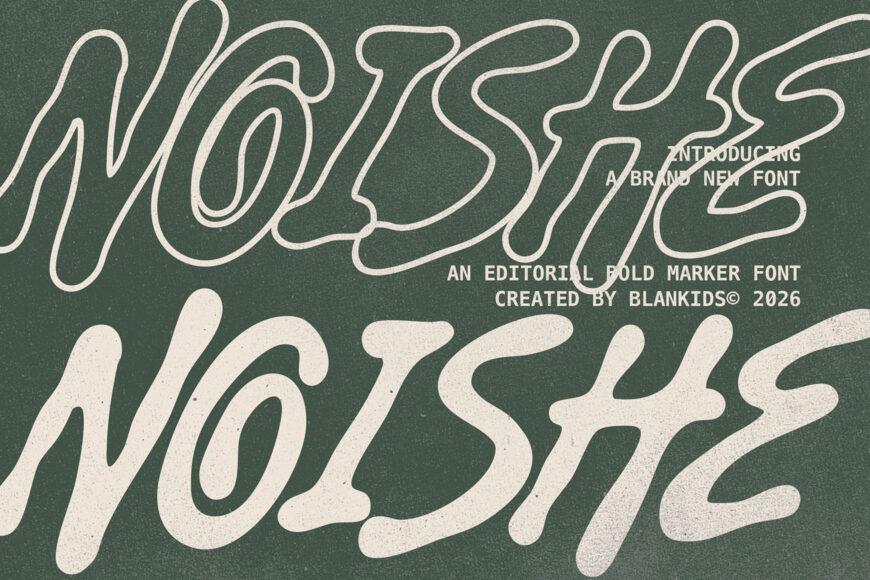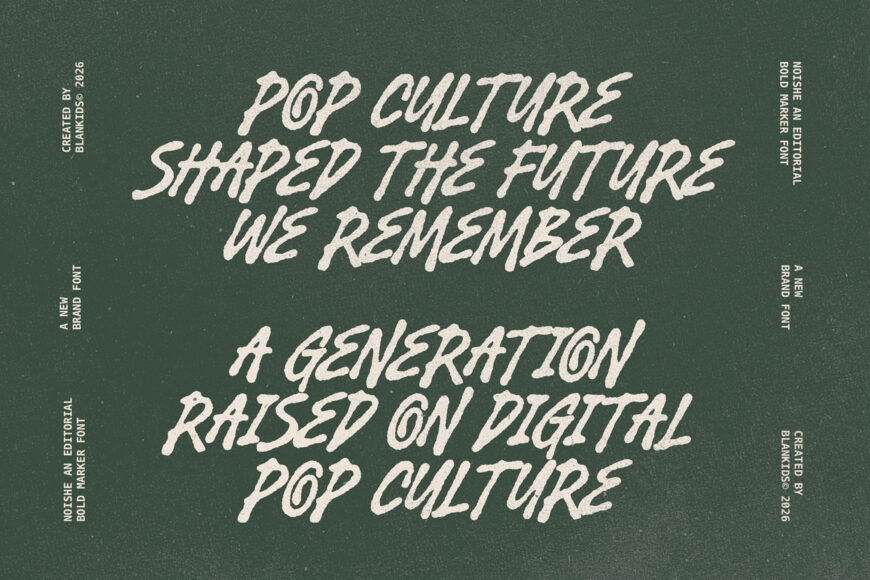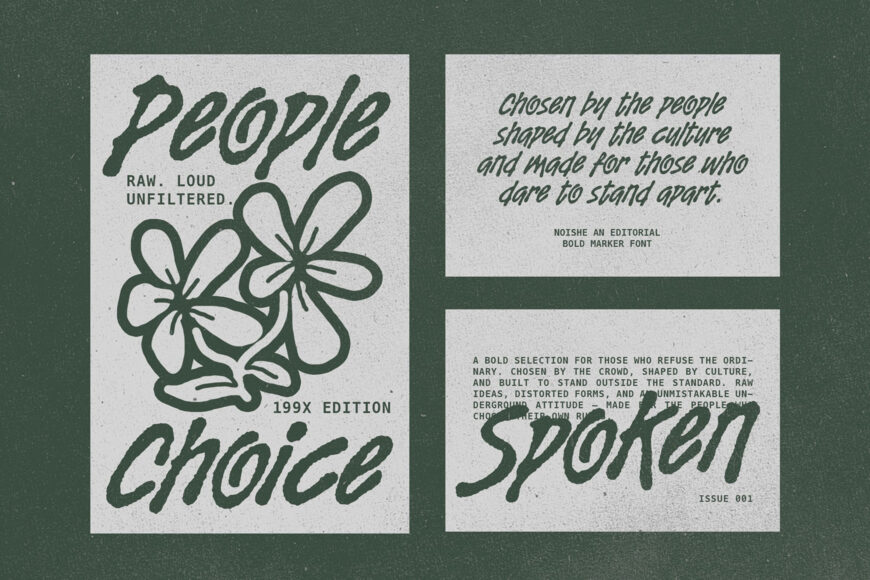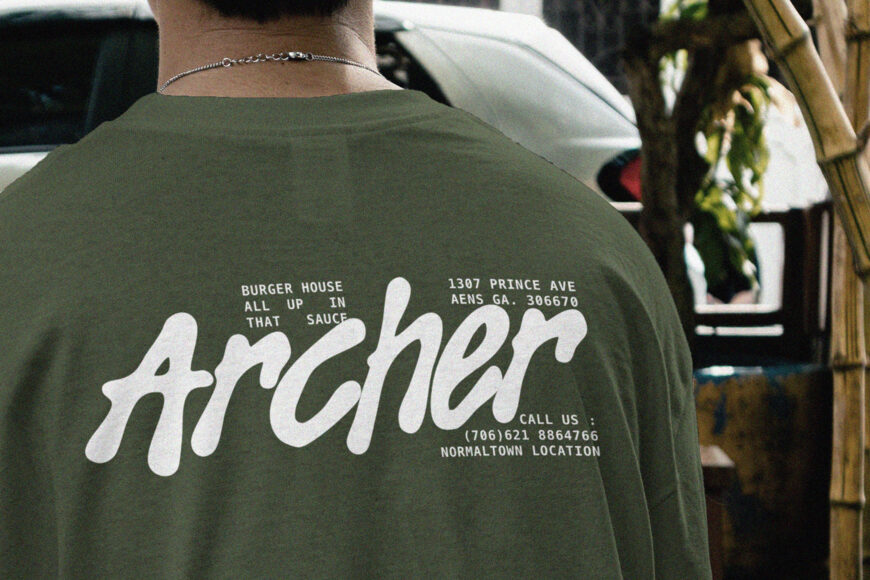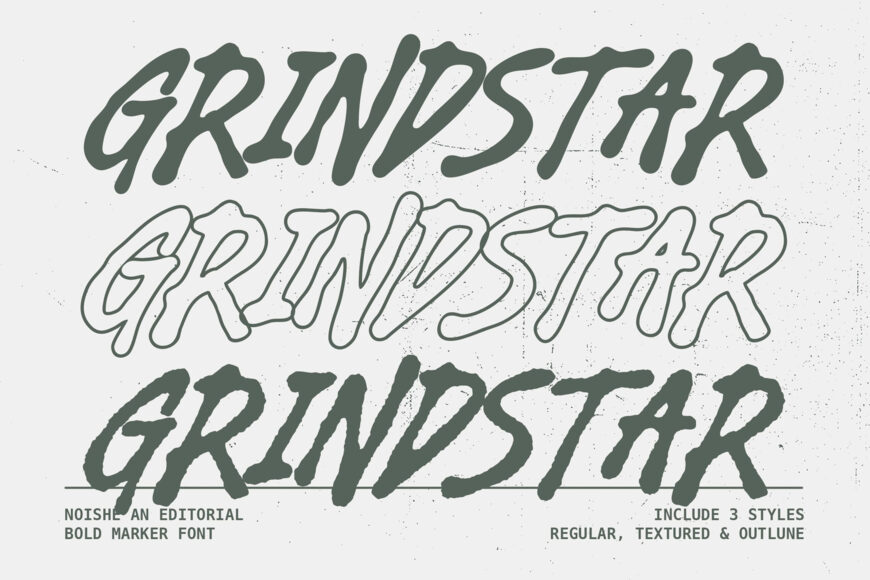
Noishe Font
NOISHE is a bold marker typeface designed to capture a raw, expressive, and authentic analog feel. Built with high-impact strokes and a natural hand-drawn texture, it delivers an energetic, unpolished aesthetic that commands attention instantly. Ideal for modern graphic design projects that demand a strong visual statement.
Designed by: Blankids Studio